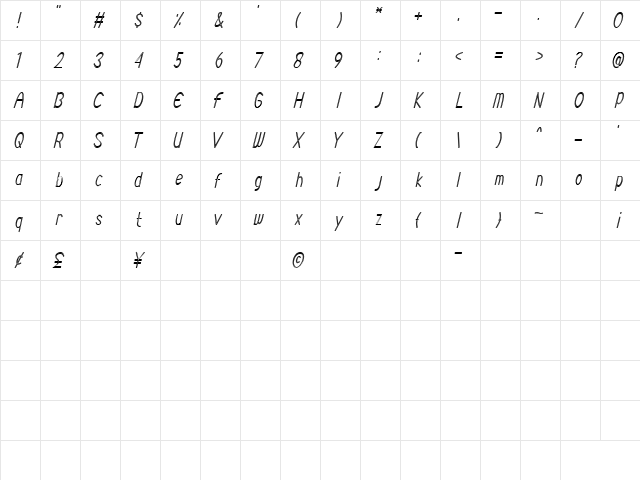
Stirlinger Regular Font Preview
Stirlinger Regular
Stirlinger Regular Font Details
| Designer | Adhi Setya |
Design Context for Stirlinger Typeface
Stirlinger offers clean, dependable letterforms without strong stylistic allegiance, making it a practical choice for designers who need flexibility.